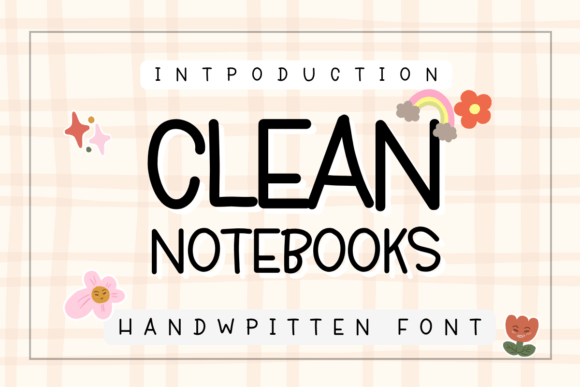
Getting Lost in the Beauty of Handwritten Fonts
We’ve all been there – sipping our morning coffee, surrounded by blank pages, and a spark of creativity strikes. The thought of filling those pages with something beautiful and meaningful is exhilarating. For many of us, it’s the perfect excuse to break out the pen and paper, and let our imagination run wild. But what if we told you there’s a way to capture that same essence of handwritten charm in a digital format?
Enter Clean Notebooks Font, a beautiful handwritten font that’s perfect for taking notes, writing a diary, or creating greeting cards. But its uses don’t stop there – this versatile font can be used for a wide range of designs, from banners and social media posts to mugs and shirts. For designers, Clean Notebooks Font offers a unique opportunity to add a touch of personality and whimsy to their projects.
- Unique Characteristics: This font features a unique blend of modern and vintage elements, with subtle texture and subtle irregularities that give it a hand-written feel.
Designer Review: Clean Notebooks Font
At first glance, Clean Notebooks Font has a certain charm to it. I love the ✨ minimalistic design and the ✨ elegant feel it brings to any document or webpage. The ✨ clear typography makes it perfect for body text, and the ✨ subtle flair on the uppercase letters adds a touch of sophistication.
However, there are some limitations to consider. The font’s ✨ limited character set can be a bit restrictive, especially for languages that require a wide range of characters. Additionally, the ✨ lack of bold and italic styles can make it difficult to create visual hierarchy in certain designs.
Pros and Cons:
- ✨ Minimalistic design with elegant feel
- ✨ Clear typography
- ✨ Suitable for body text
- ⚠️ Limited character set
- ⚠️ Lack of bold and italic styles
Overall, I think Clean Notebooks Font is a solid choice for designers who want a clean and elegant typography. While it may not be the best option for every project, it’s definitely worth considering for simple designs where minimalism is key.
Getting the Most Out of Clean Notebooks Font
For optimal results, use the Clean Notebooks Font with a clean and minimal design aesthetic.
Experiment with different font sizes and styles to create visual hierarchy and emphasis.
The Clean Notebooks Font is ideal for:
Journaling and note-taking
Minimalist design projects
Academic and educational materials
Alternatives to Clean Notebooks Font for Designers
Clean Notebooks Font is a popular choice for designers, but there are other alternatives that can offer unique characteristics and benefits. Here are a few options to consider:
Ostrich Sans is a sans-serif font that is highly legible and versatile. It is suitable for body text, headings, and even display typography. Ostrich Sans is a great choice when you need a clean and modern font that can work well in a variety of contexts. Compared to Clean Notebooks Font, Ostrich Sans has a more geometric feel and is more suitable for digital use.
Montserrat is a sans-serif font that is designed specifically for digital use. It is highly legible and has a strong, geometric feel. Montserrat is a great choice when you need a font that can work well in small sizes and on a variety of devices. Compared to Clean Notebooks Font, Montserrat has a more modern and edgy feel, making it suitable for tech and fashion brands.
Merriweather is a serif font that is highly legible and elegant. It is suitable for body text, headings, and even display typography. Merriweather is a great choice when you need a classic and sophisticated font that can add a touch of elegance to your designs. Compared to Clean Notebooks Font, Merriweather has a more traditional feel and is more suitable for print use.